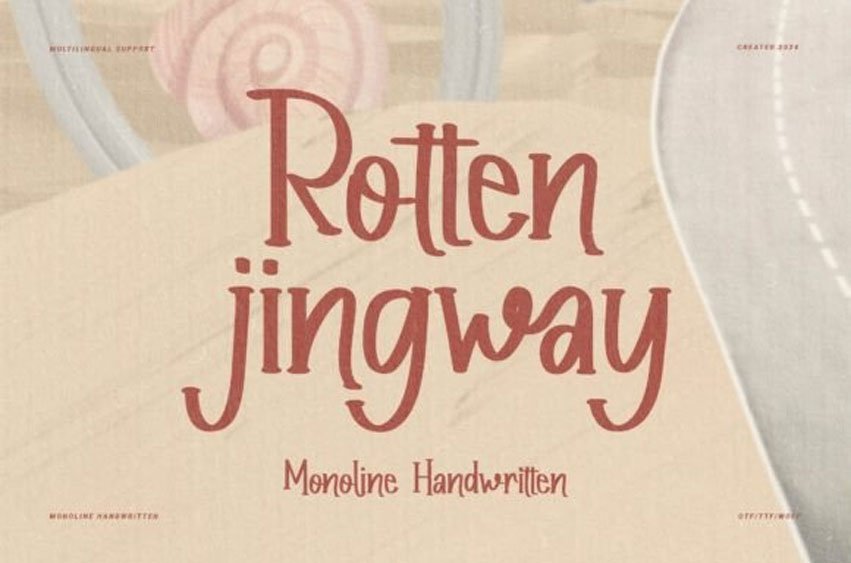
Rotten Jingway Font is a stylish and modern handwritten font. Its smooth, flowing lines make it look like natural handwriting, but with a touch of elegance. The font is easy to read and perfect for adding a personal, creative feel to invitations, quotes, or branding.